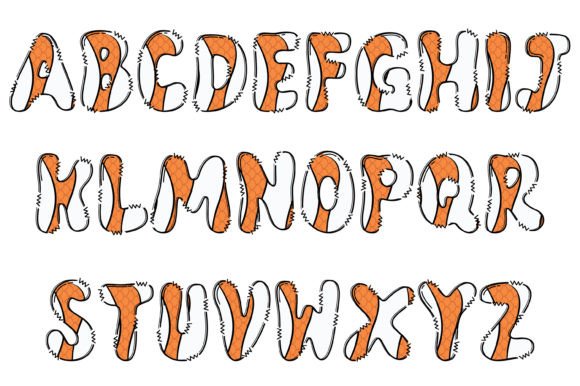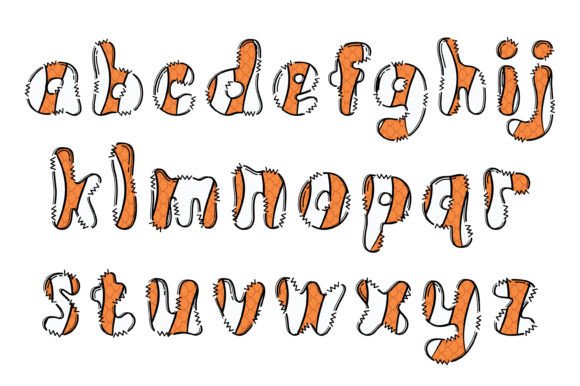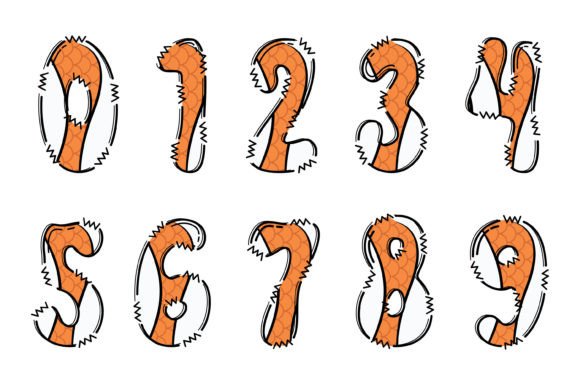
The Clown Fish Font: A Playful and Artistic Delight for Designers and Crafters
I’ll never forget the time I was working on a children’s book project, and I just couldn’t find the right font to bring the story to life. The client wanted something playful, colorful, and easy to read, but I was coming up blank. That’s when I stumbled upon the Clown Fish Font, and it was love at first sight! ✨
These fonts are often used in designs that aim to convey a playful or artistic feel, such as children’s books, posters, invitations, greeting cards, and more. For instance, children’s books often utilize fonts that are whimsical, colorful, and easy to read, creating an engaging reading experience for young audiences.
- ✨ The playful and artistic vibe it brings to any design project
- ✅ Easy to read, even for young audiences
- 🎨 The color version is perfect for designs that require a pop of color
The Designer Inspiration Behind Clown Fish Font
The Clown Fish Font was inspired by the playful and colorful world of children’s books. The designer wanted to create a font that would bring joy and whimsy to designs, while also being easy to read and versatile. 🌟